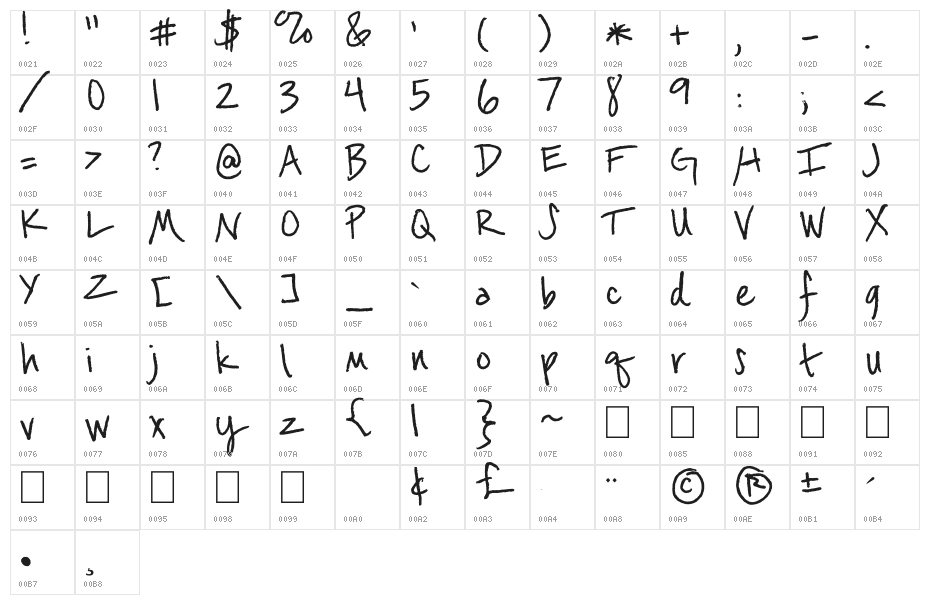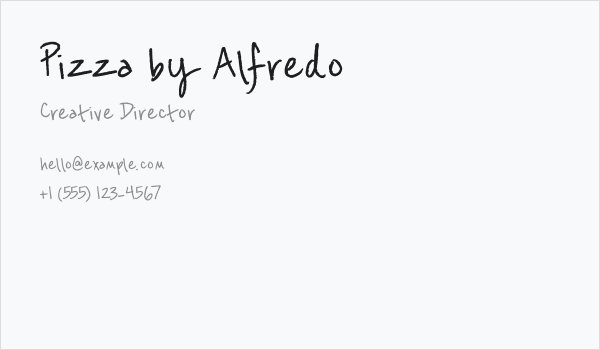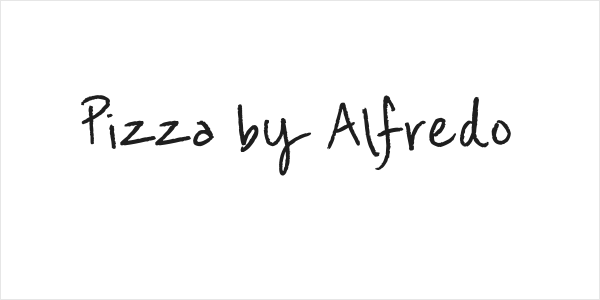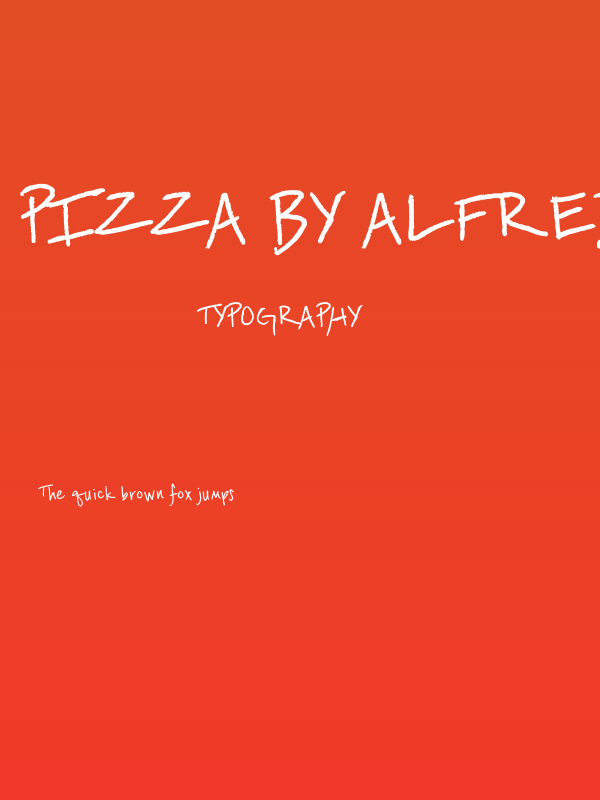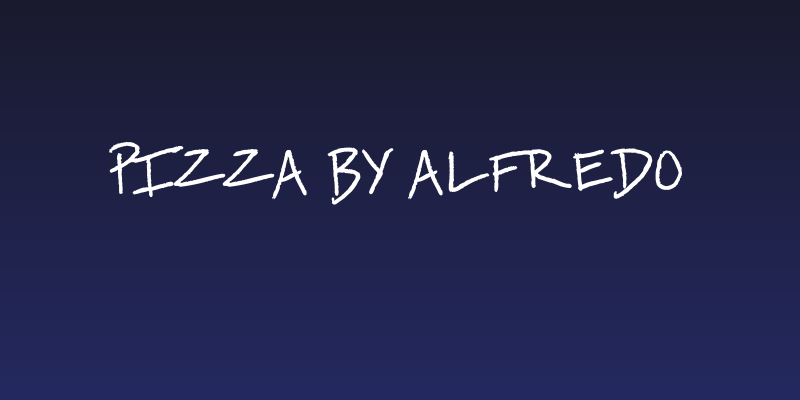
Pizza by Alfredo Font
Pizza by Alfredo Description
This font exudes a casual, handwritten style with a playful and informal character. The letters are uneven and slightly slanted, giving it a dynamic and lively appearance. The strokes are bold and varied, with a natural flow that mimics real handwriting. The uppercase and lowercase letters are distinct, with some letters featuring unique flourishes and loops. Numbers and special characters maintain the same energetic style, making the font versatile for creative projects. The overall look is approachable and friendly, perfect for adding a personal touch to any design.
| Proposed Projects | Ideal for greeting cards, personal branding, casual invitations, and playful posters. |